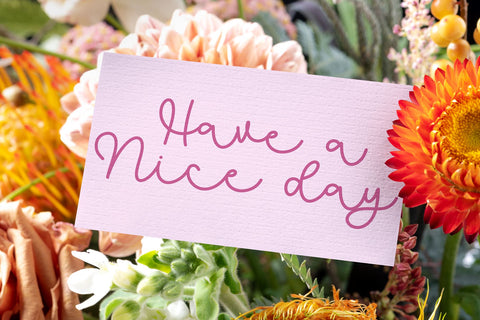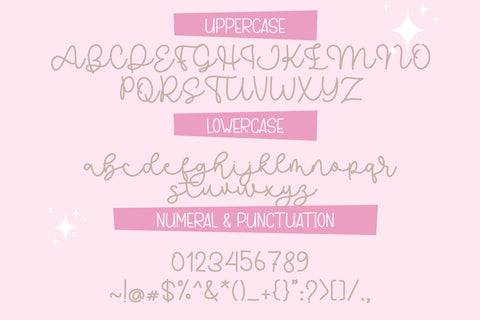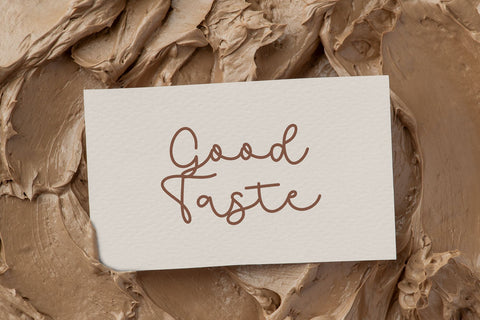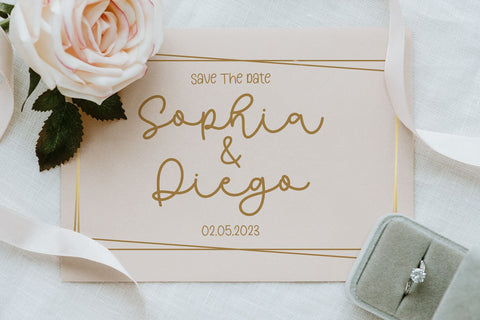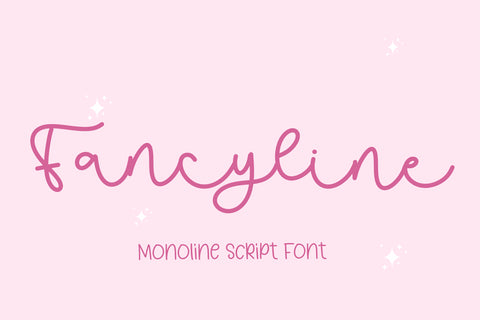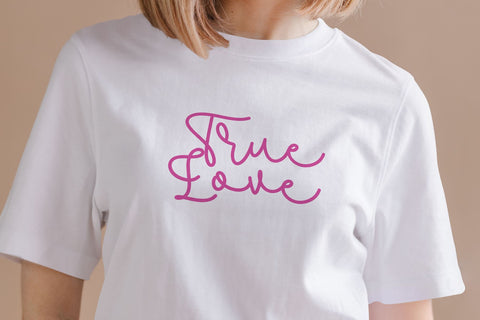
Fancy line - monoline font
Fancy line is an elegant hand lettering look attractive and natural.
Every single letters have been carefully crafted to make your text looks beautiful.
Fancy line is PUA encoded, which means you could access all of the glyphs!
Every letter has a unique and beautiful touch, which will make your design come alive!